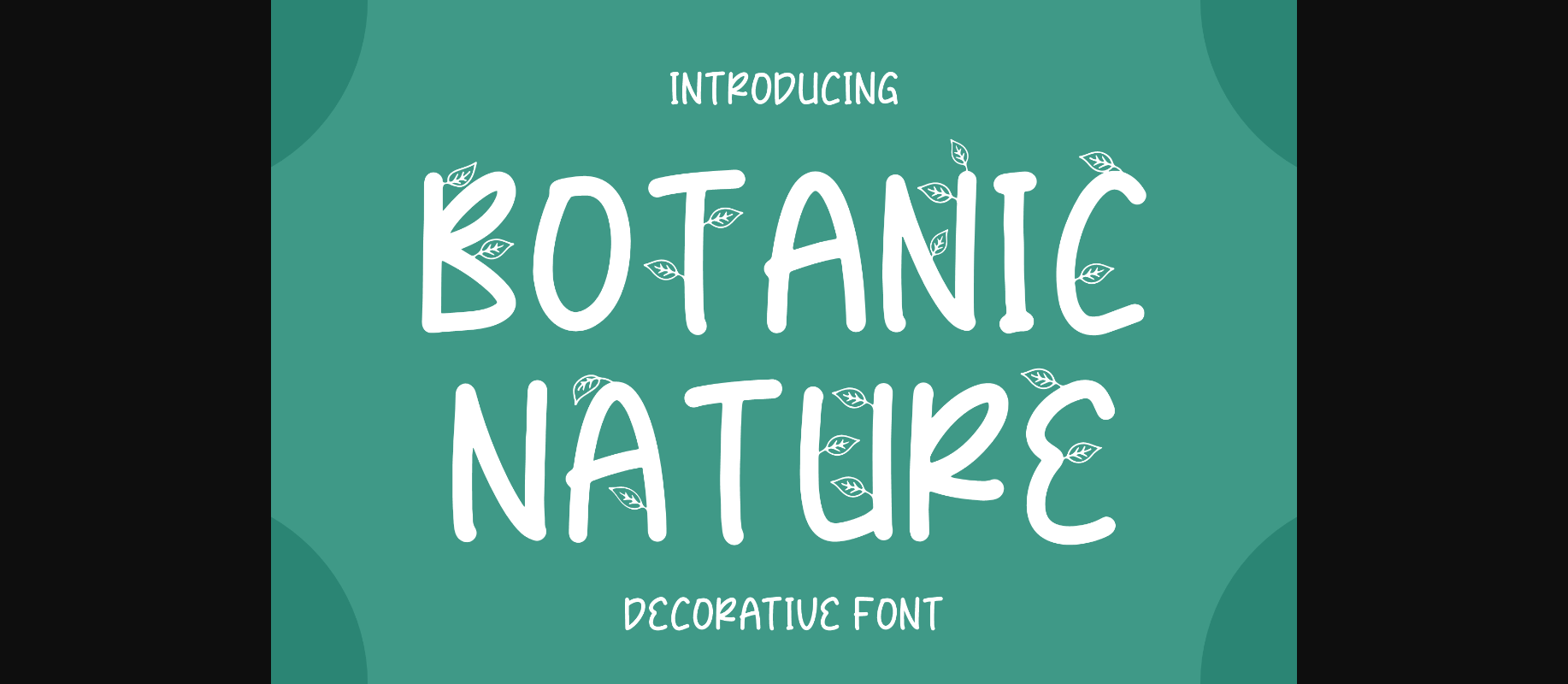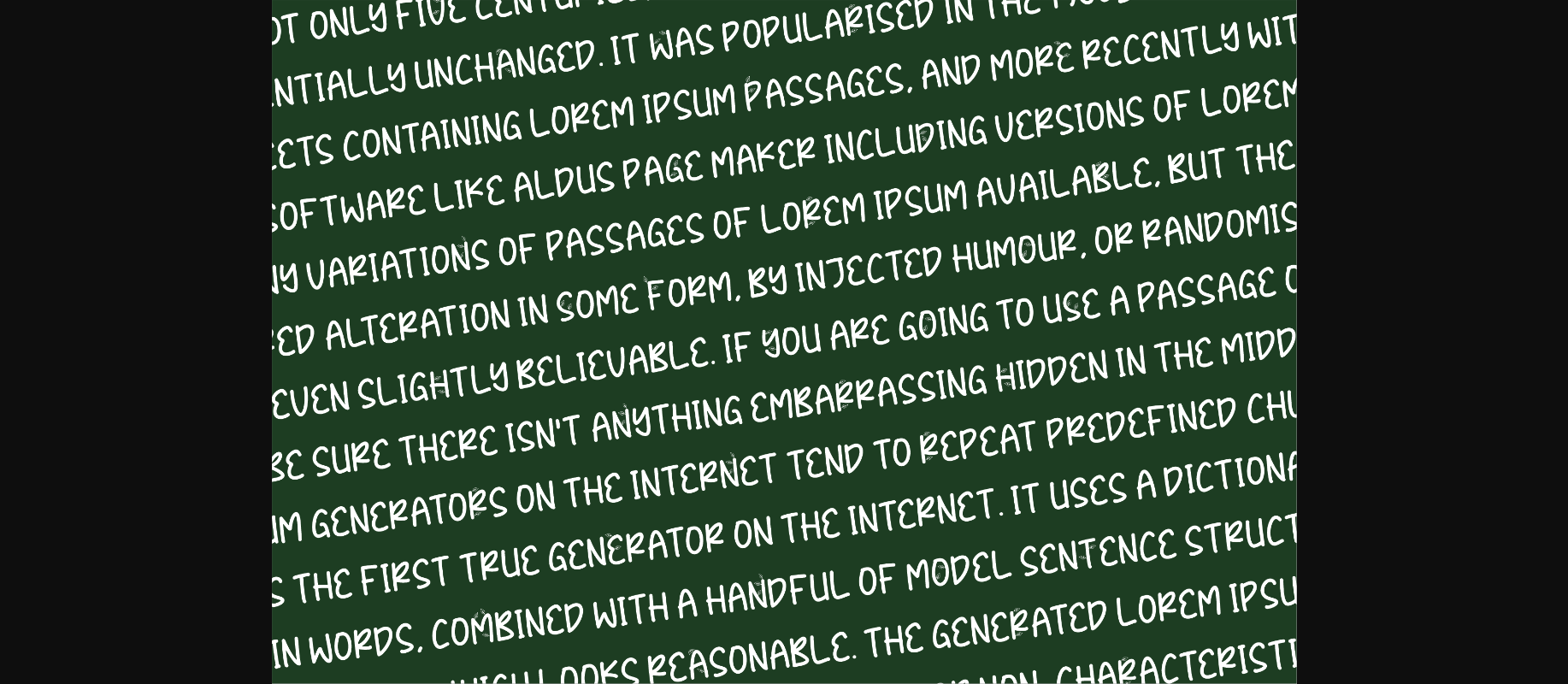
About Botanic Nature Font
Botanic Nature is a natural decorative font, perfect for use on a variety of projects such as logos, branding projects, homeware designs, product packaging, mugs, quotes, posters, shopping bags, t-shirts, book covers, name card, invitation cards, greeting cards, label, photography, watermark, special events, and all your other lovely projects that need a beautiful script taste.